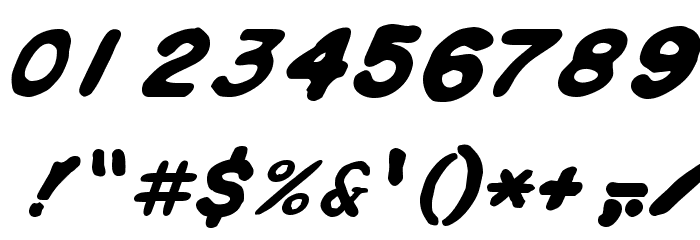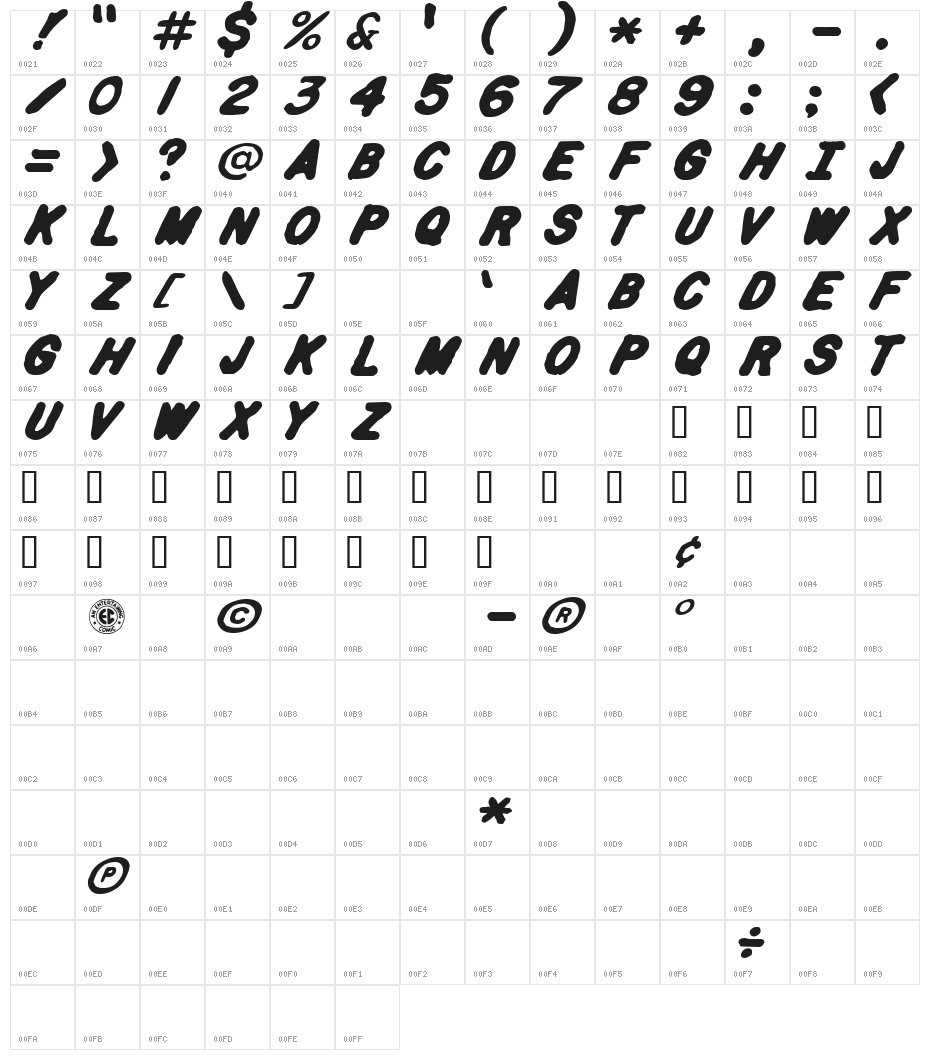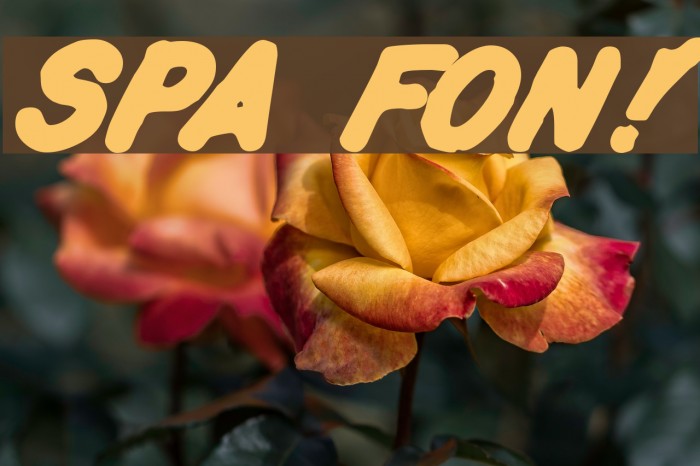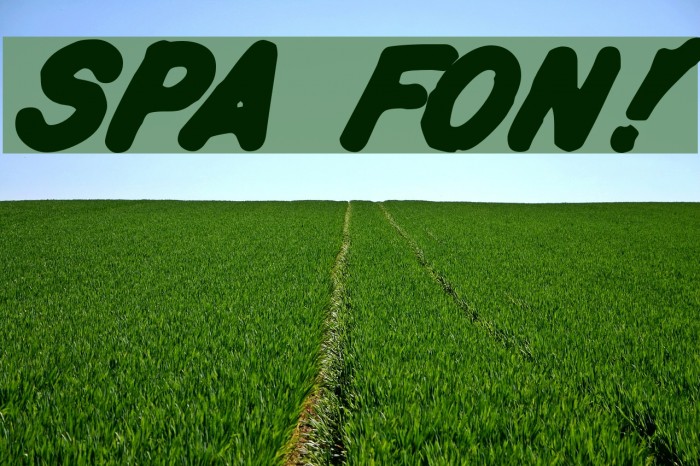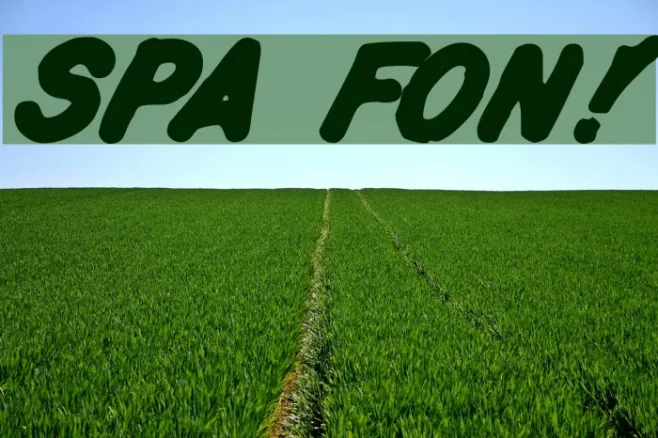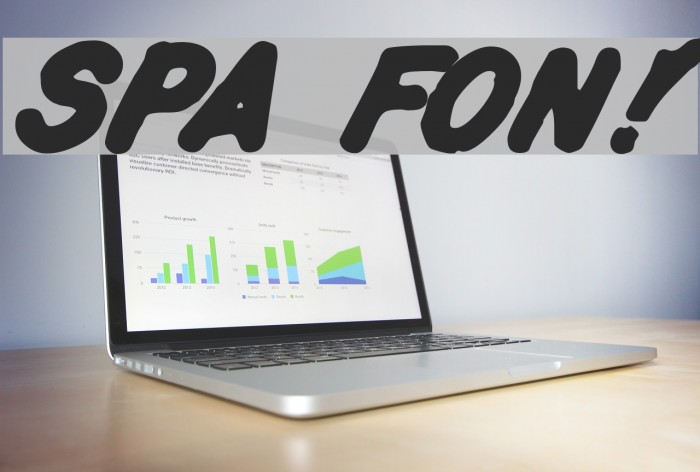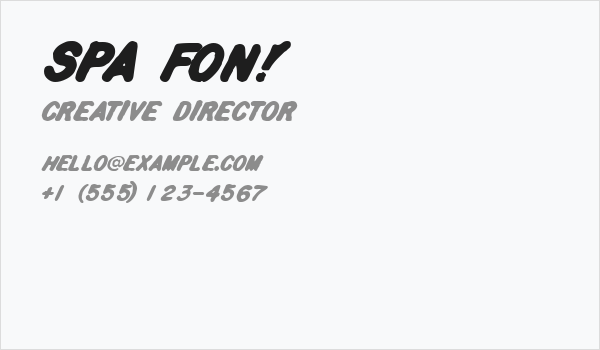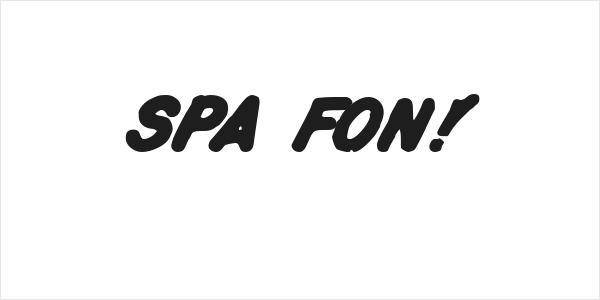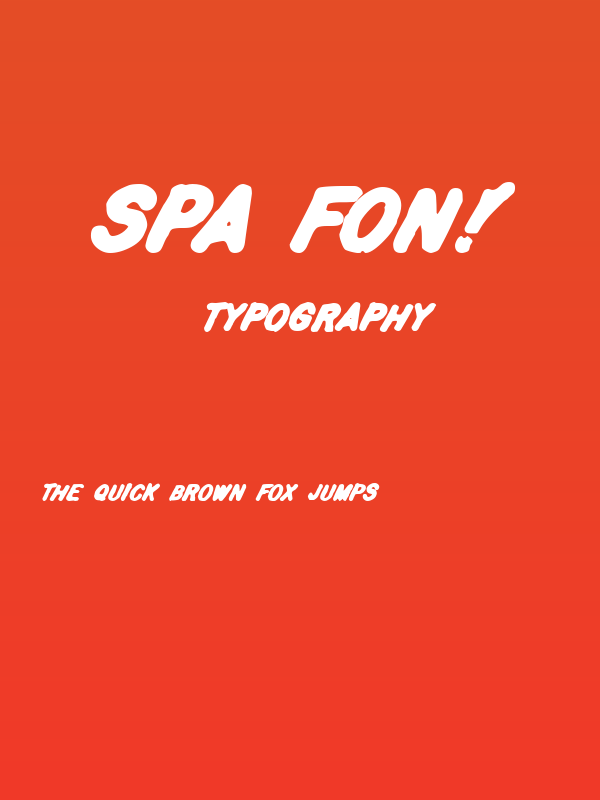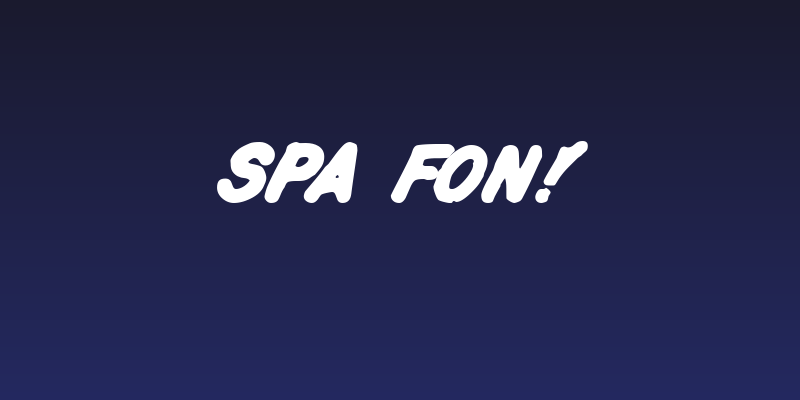
Spa Fon! Font
Spa Fon! Description
This bold and dynamic font features a playful, handwritten style with thick, rounded strokes. The characters are slightly slanted, giving a sense of motion and energy. The uppercase and lowercase letters maintain a consistent style, with the uppercase being slightly more pronounced. Numbers and special characters are equally bold, ensuring they stand out. The overall appearance is casual yet impactful, making it suitable for eye-catching designs. The font's thick strokes and rounded edges contribute to a friendly and approachable feel, ideal for projects that require a touch of personality.
| Proposed Projects | Ideal for branding, posters, children's books, and playful design projects. |